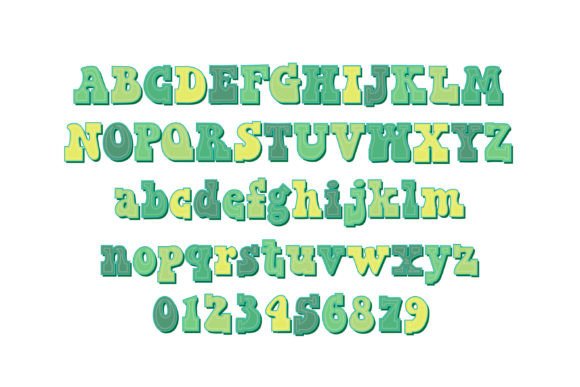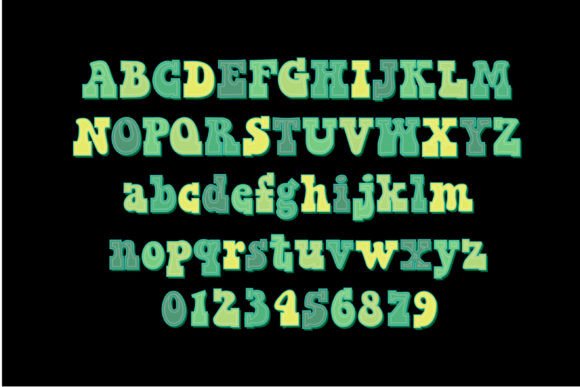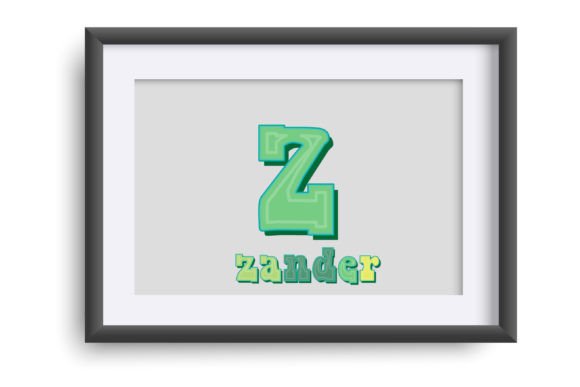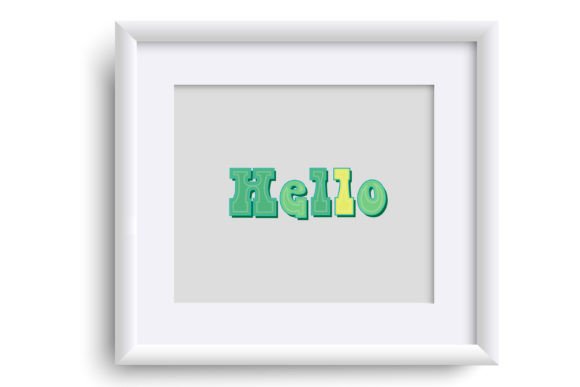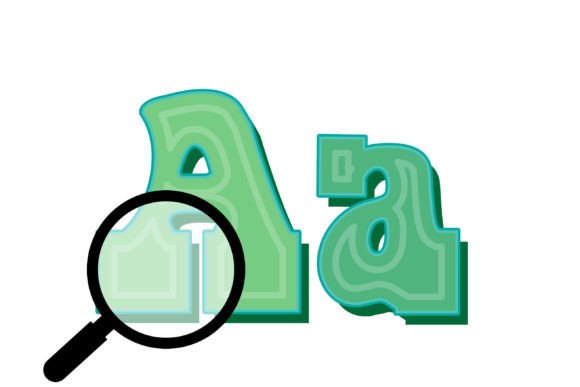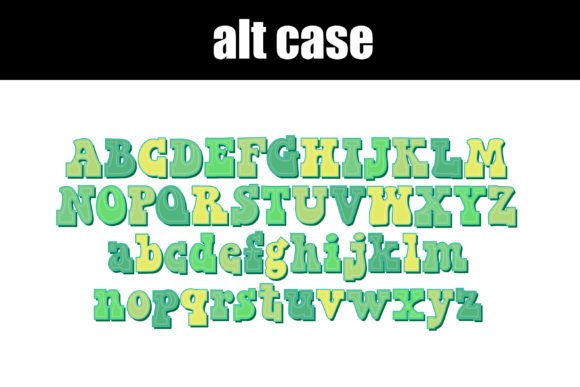
The Quest for the Perfect St. Patrick’s Day Font: Enter Green Groove
I’ll never forget the time I was working on a St. Patrick’s Day project for a client, and I just couldn’t find the right font to capture the festive spirit. I scoured the internet, tried out dozens of fonts, but nothing seemed quite right. That was until I stumbled upon Green Groove Font. ✨
As soon as I saw it, I knew I had found what I was looking for. The playful shapes, quirky details, and modern vibe all screamed “St. Patrick’s Day” to me. But what really sealed the deal was when I discovered it was PUA encoded, making it easy to access all the glyphs and swashes. ✅
An Honest Review of Green Groove Font
- ✨ Unique and playful design that’s perfect for St. Patrick’s Day projects
- 💃 Highly versatile and can be used for a variety of projects, from invitations to social media graphics
- 🎉 Fun and festive touch that adds a personality to any design
While Green Groove Font is an amazing font, there are a few things to keep in mind. 🤔
- ⚠️ Some of the glyphs and swashes can be a bit finicky to access, especially for beginners
- ⚠️ The font may not be suitable for very formal or professional projects, as it’s quite playful and attention-grabbing
The Story Behind Green Groove Font
Green Groove Font was designed by a team of creatives who wanted to capture the spirit of St. Patrick’s Day in a unique and playful way. 💚 They drew inspiration from traditional Irish designs, combined with modern typography trends, to create a font that’s both fun and festive. 🎉